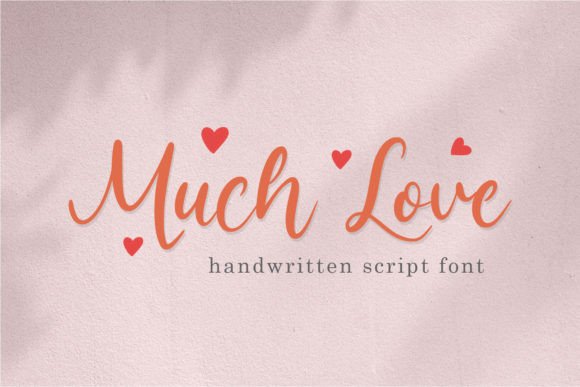
Dive into the realm of retro charm with Muchlove Font, a captivating script font that breathes life into your designs, evoking a sense of nostalgia and timeless elegance. Its meticulously crafted curves and delicate strokes embody the essence of vintage allure, transporting you back to an era of handwritten artistry.
Muchlove Font is the ultimate choice for designers, crafters, and vintage enthusiasts who seek a font that speaks volumes. Its versatility knows no bounds, seamlessly adapting to a myriad of creative endeavors, from product packaging that exudes a touch of the past to branding projects that demand a distinct personality. Unleash your creativity and let Muchlove Font elevate your designs to new heights of sophistication.
With Muchlove Font gracing your magazines, social media posts, and wedding invitations, you'll captivate your audience with a timeless aesthetic that resonates with the heart. Its enchanting presence adds a layer of warmth and charm to any project, whether it's a heartfelt letter, a stunning poster, or an eye-catching logo. Let Muchlove Font become your trusted companion in expressing your individuality and creating designs that leave a lasting impression.
Step into the world of Muchlove Font and immerse yourself in a symphony of vintage elegance. Its graceful lines and enchanting curves will transform your words into timeless works of art, perfect for expressing your emotions and capturing the attention of your audience. Discover the beauty of nostalgia and embark on a creative journey where every design tells a story. Embrace the allure of Muchlove Font and elevate your projects to new heights of sophistication and charm.